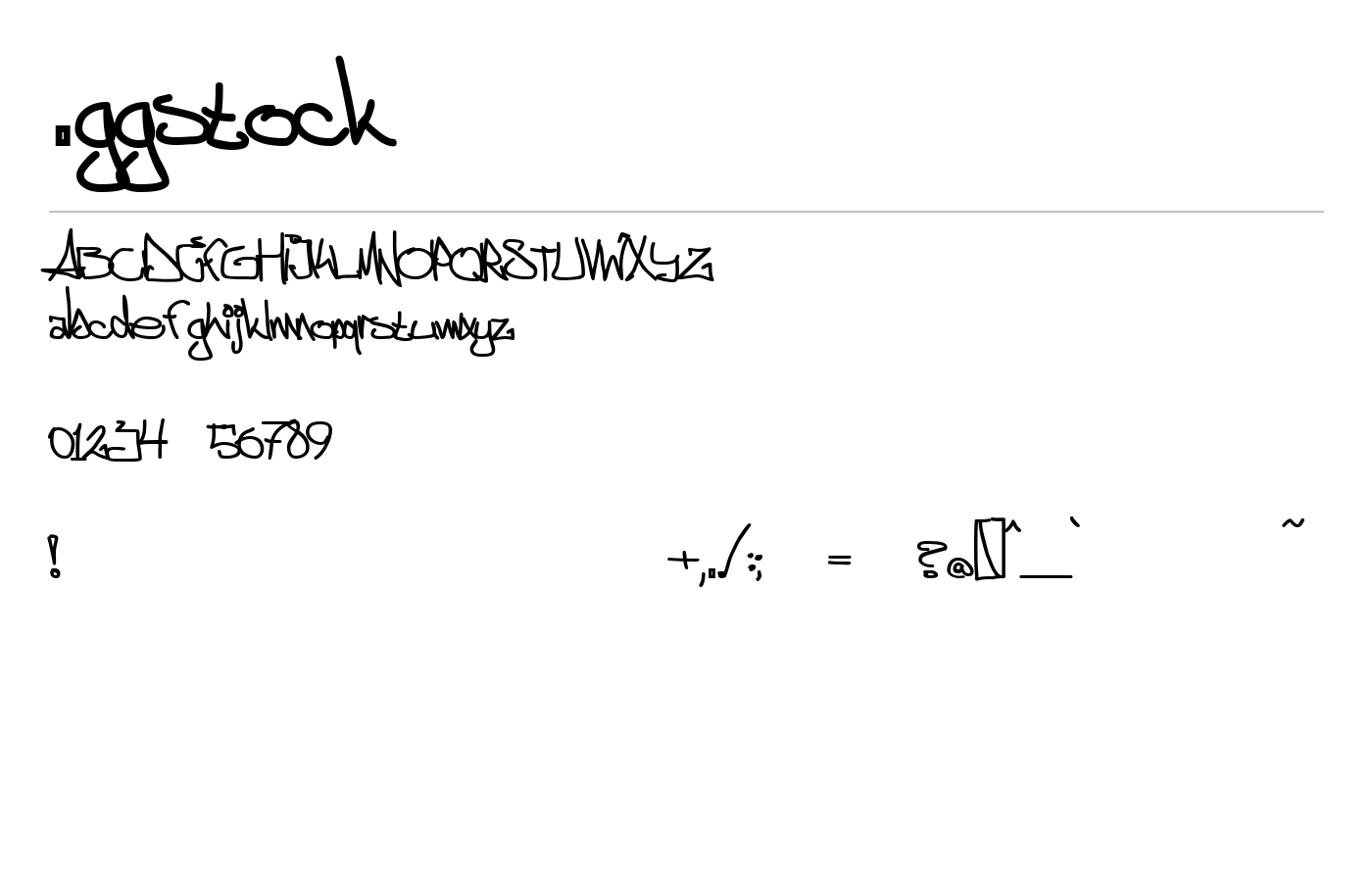
Äggstock is a quirky, handwritten-style font with a playful and casual vibe. Its narrow, tall letterforms and uneven strokes give it an organic, spontaneous feel, making it ideal for creative projects that want to appear approachable and fun. This font works well for informal designs like invitations, posters, and branding that seeks a personal touch without formality.
Äggstock Font
About Äggstock Font